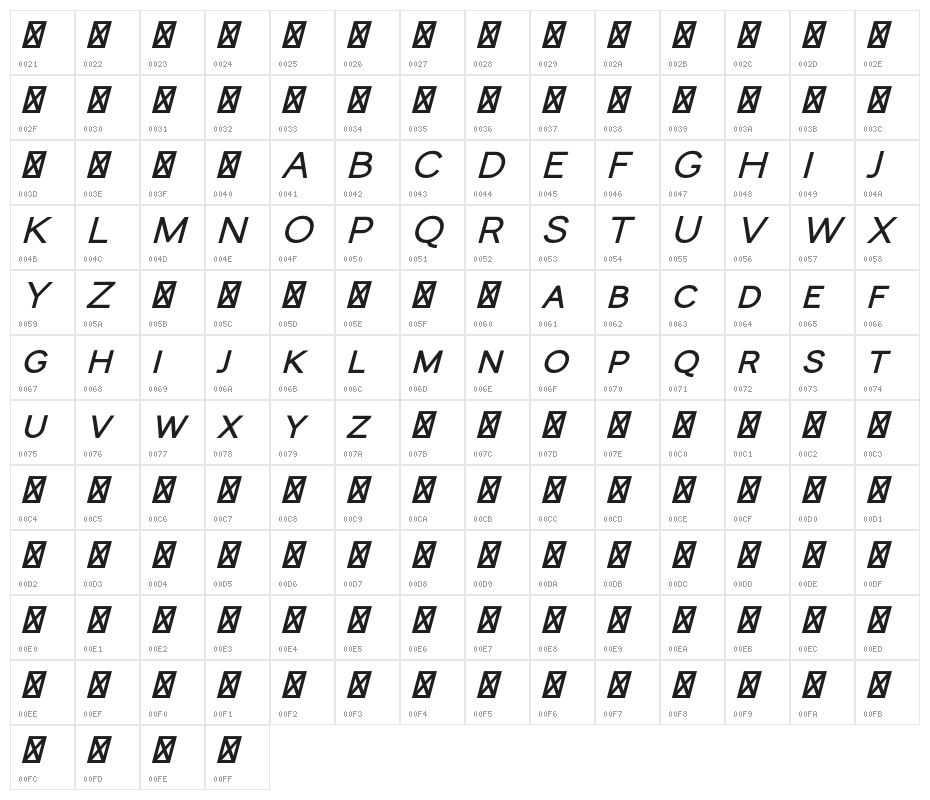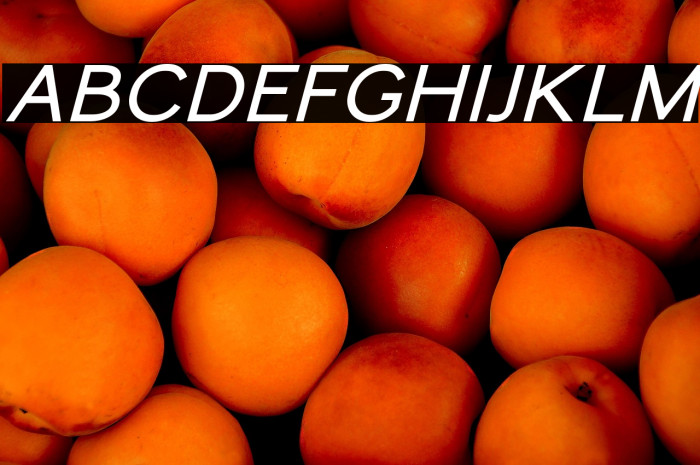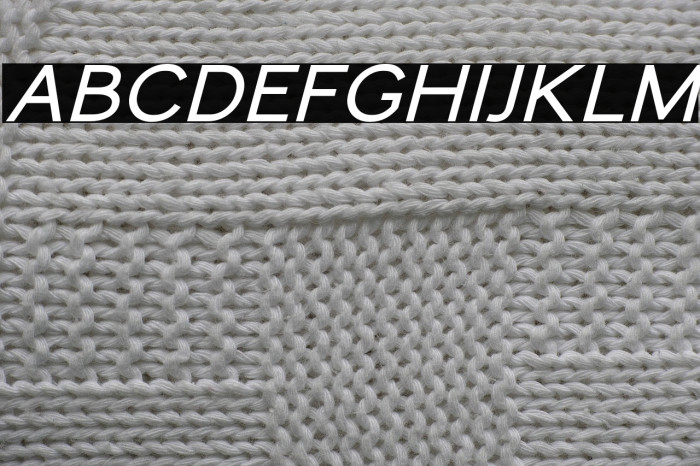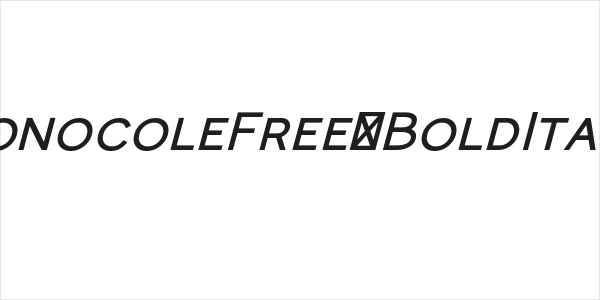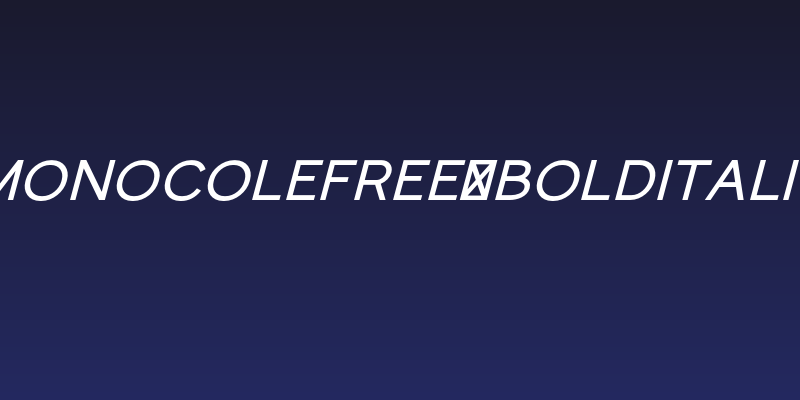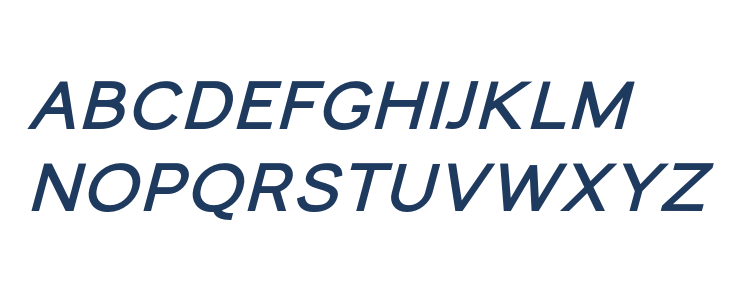
MonocoleFree-BoldItalic Font
MonocoleFree-BoldItalic Description
This font features a bold and italicized style, characterized by its slanted and dynamic appearance. The uppercase letters are prominently displayed with a consistent stroke weight, giving them a strong and assertive look. The italic slant adds a sense of motion and elegance, making it suitable for attention-grabbing headlines or titles. The characters are evenly spaced, ensuring readability while maintaining a compact and cohesive appearance. This font's modern aesthetic is enhanced by its clean lines and lack of decorative elements, making it versatile for various design applications.
| Proposed Projects | Ideal for headlines, branding, advertising, and editorial design. |